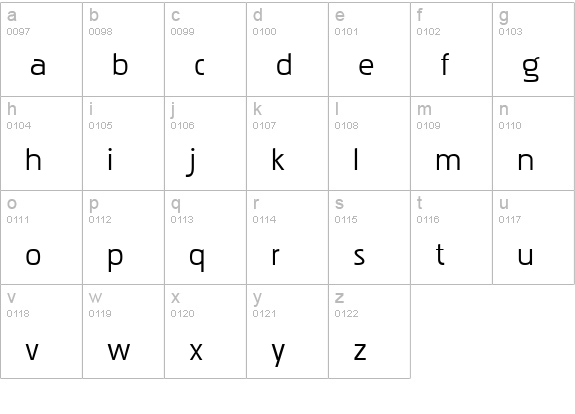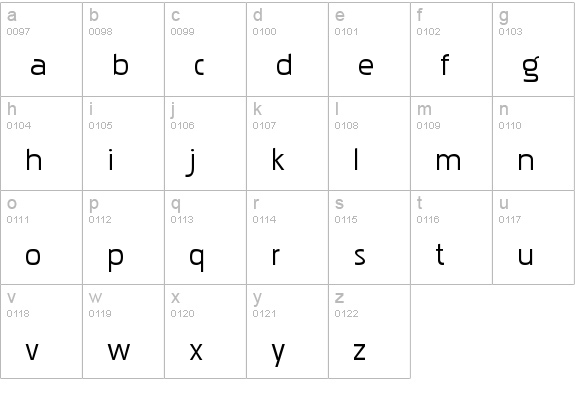
Pakenham Xp font is a sleek and modern typeface that exudes sophistication and style. With its clean lines and balanced proportions, this font is perfect for a wide range of design projects, from branding to editorial design. The versatility of Pakenham Xp font makes it a must-have for designers looking to add a touch of elegance to their work. The best part about Pakenham Xp font is that it is completely free to download at FontsMarket.com. That's right, you can enhance your design projects with this stunning font without having to spend a dime. So why wait? Head over to FontsMarket.com now and start using Pakenham Xp font to elevate your designs to the next level.